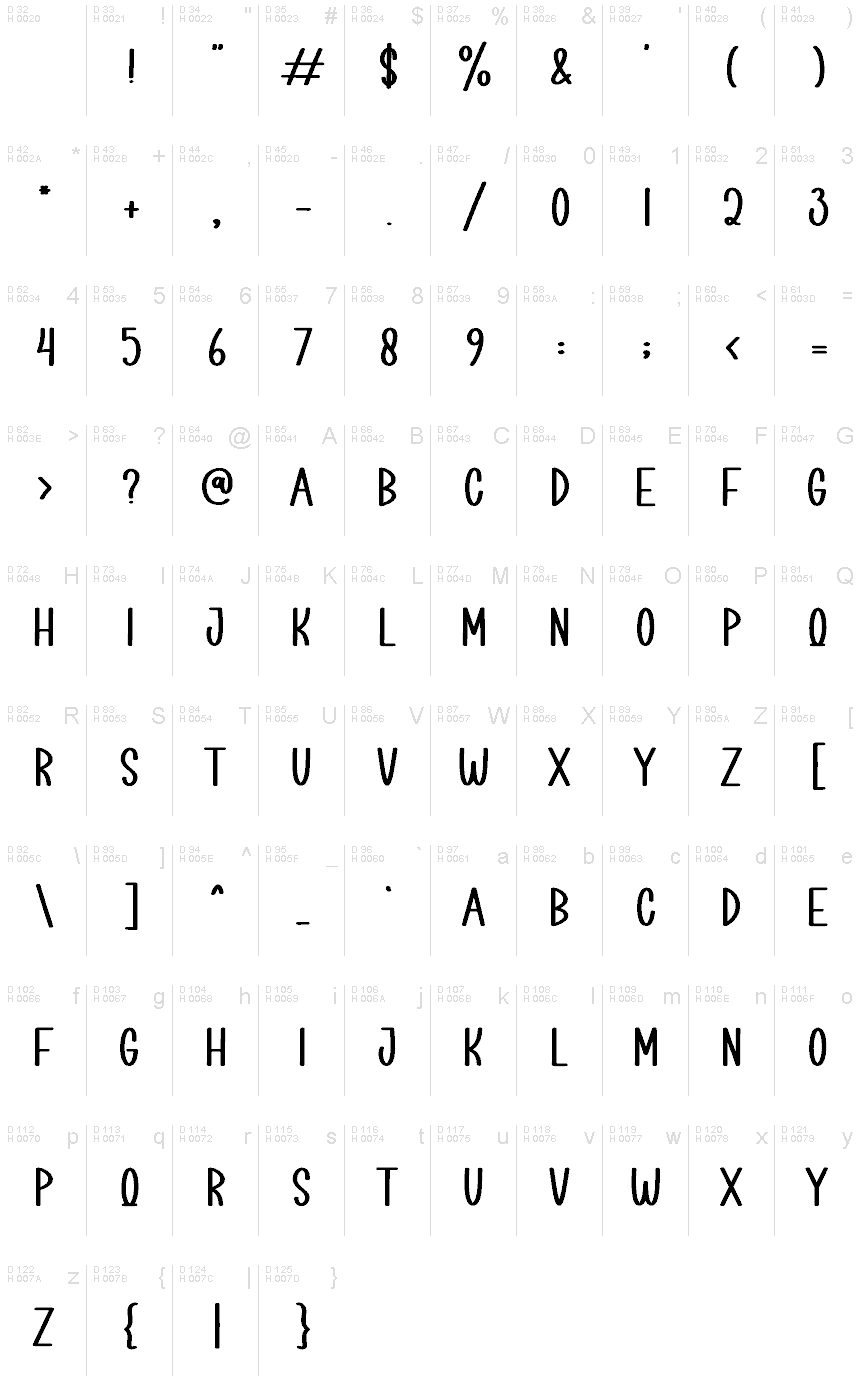
Cartoon Box
Cartoon Box font by Scratchones is a whimsical, casual handwritten font. It features a comic-inspired, friendly vibe with a condensed width and hand-drawn aesthetic, perfect for adding a playful touch to your designs. This delightful typeface combines creativity and authenticity for an unforgettable impression.
This free handwritten font is ideal for children’s books, comics, labels, branding projects, invitations, greeting cards, logos, social media graphics, stationery design ideas, apparel projects like T-shirt designs or tote bags prints.